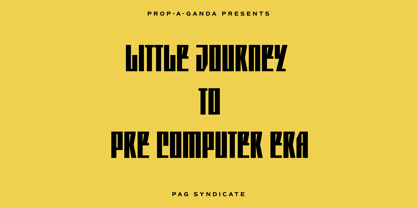
PAG Syndicate
by Prop-a-ganda
The PAG Syndicate Font Family was designed by Ryoichi Tsunekawa and published by Prop-a-ganda. PAG Syndicate contains 1 styles. More about this family
Prop-a-ganda offers retro-flavored fonts inspired by lettering on retro propaganda posters, retro advertising posters, retro packages all the world over. This is perfect font for your retrospective project. PAG Syndicate is rectangle and rather narrow font. This font has squarish face designed only by straight line, it spices up even the short words.
Designers: Ryoichi Tsunekawa
Foundry: Prop-a-ganda